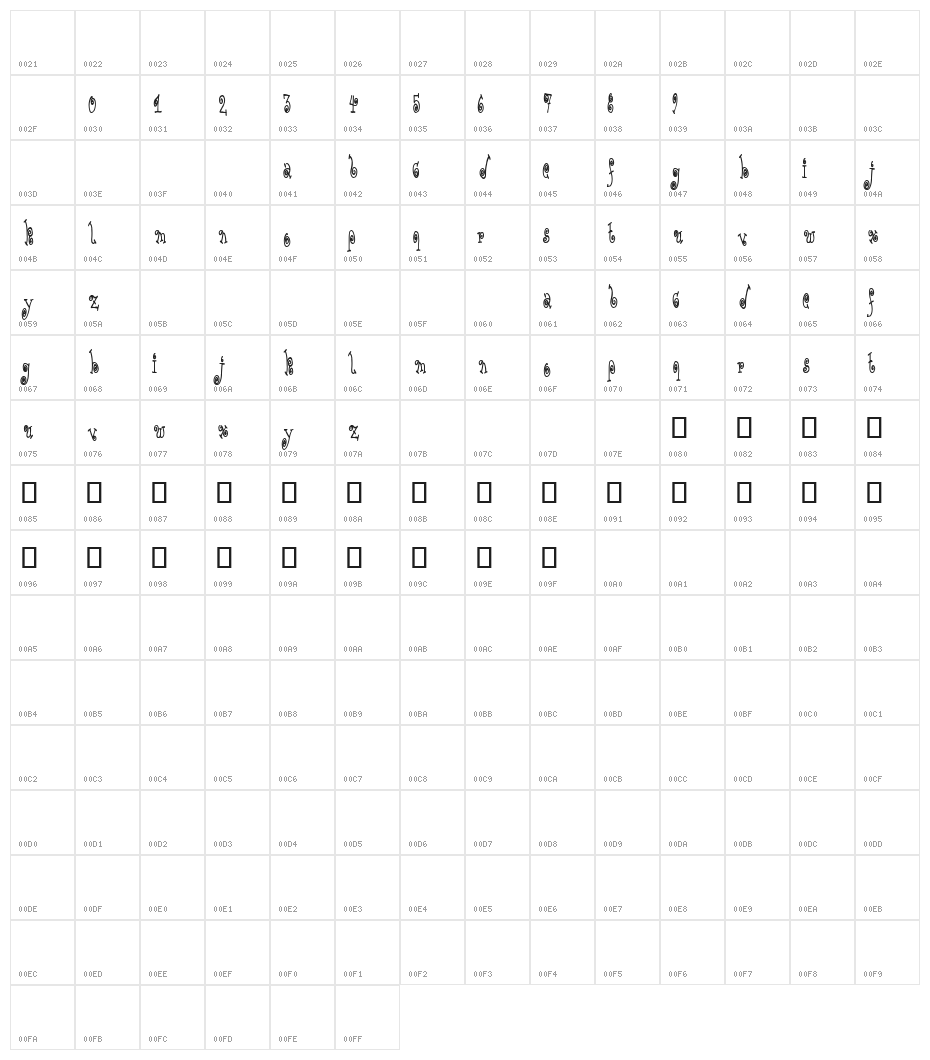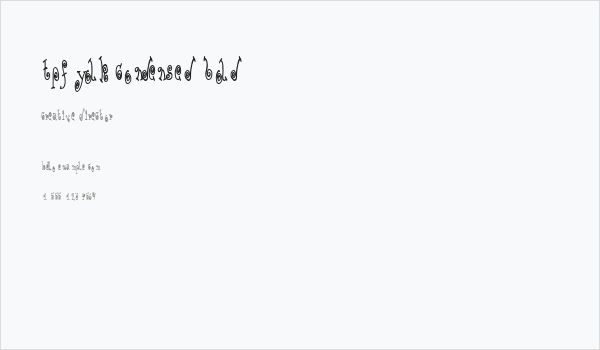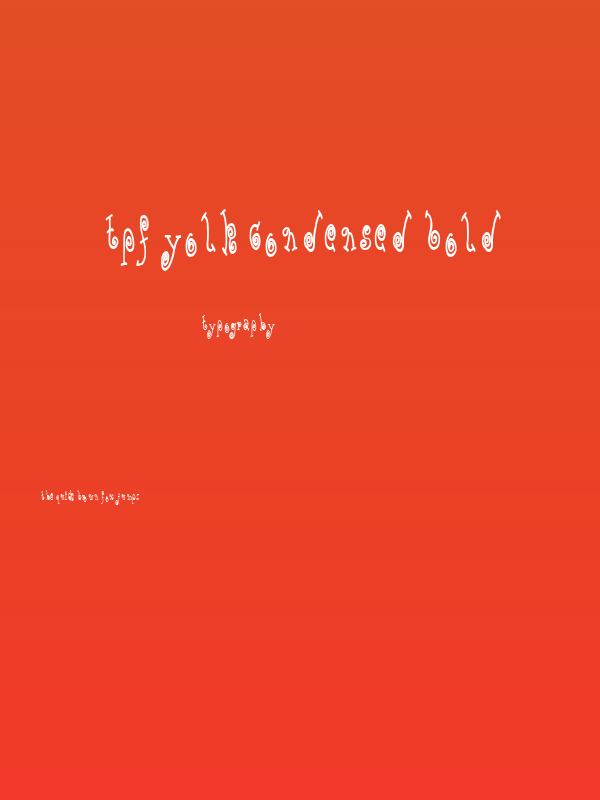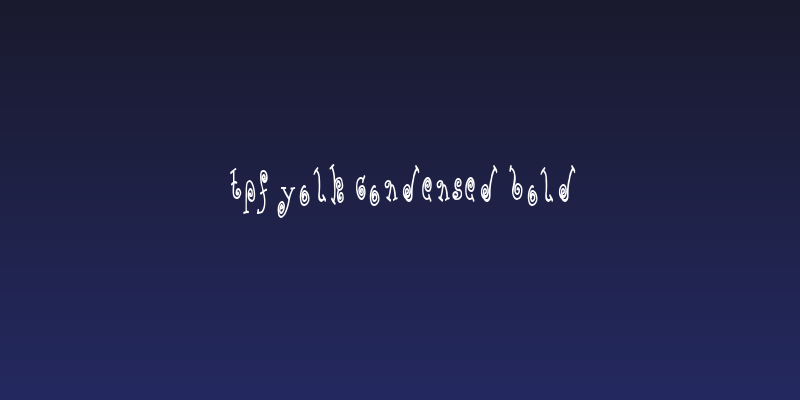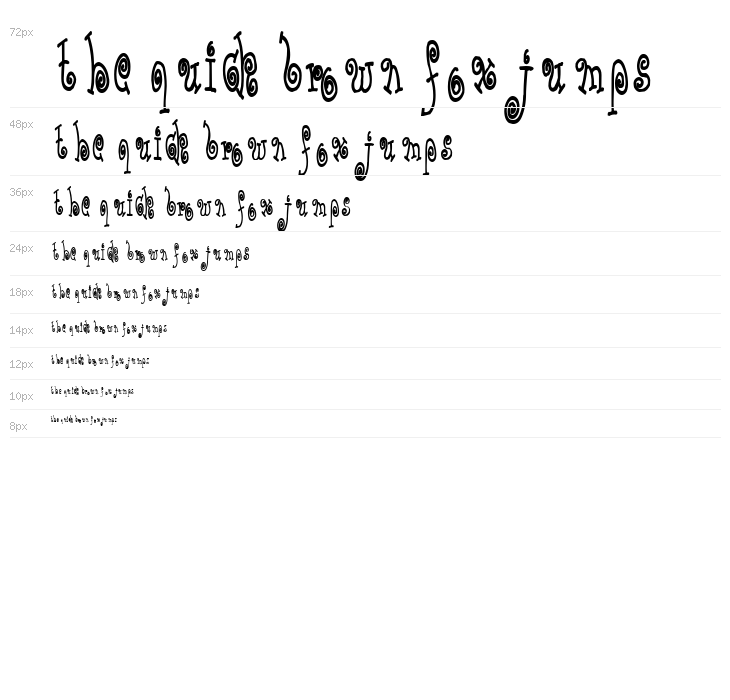
TPF Yolk Condensed Bold Font
TPF Yolk Condensed Bold Description
This font features a whimsical and playful design with a unique spiral and curl motif integrated into each character. The letters exhibit a condensed form, giving them a compact appearance while maintaining a bold presence. The strokes are consistent in thickness, providing a uniform look across the alphabet. The numbers and special characters follow the same playful style, making them ideal for creative and informal applications. The overall design is decorative, with an artistic flair that captures attention and adds a touch of fun to any project.
Proposed ProjectsIdeal for children's book covers, playful branding, party invitations, and creative posters.